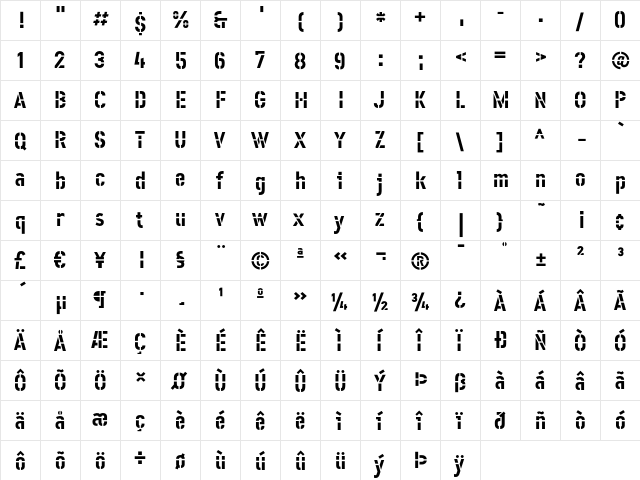
Offline Bold
Design Context for Offline Typeface
Offline offers clean, dependable letterforms without strong stylistic allegiance, making it a practical choice for designers who need flexibility. The heavy weight commands attention and anchors typographic hierarchies.
Pro Tip: Use Offline in both headline and body roles to test its range before committing to a single application.